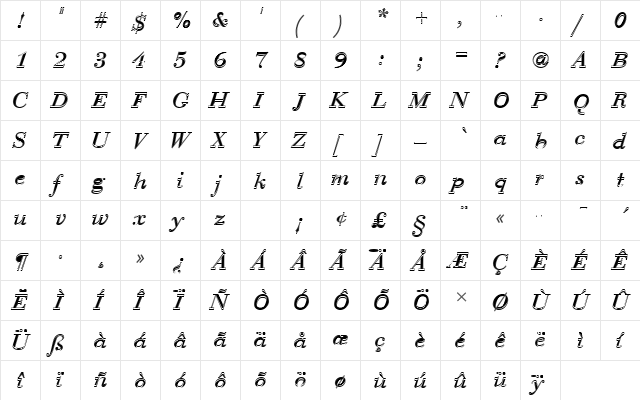
BauerBodTRegItaIn1 Regular Font Preview
BauerBodTRegItaIn1 Regular
Design Context for BauerBodTRegItaIn1 Typeface
BauerBodTRegItaIn1 offers clean, dependable letterforms without strong stylistic allegiance, making it a practical choice for designers who need flexibility.